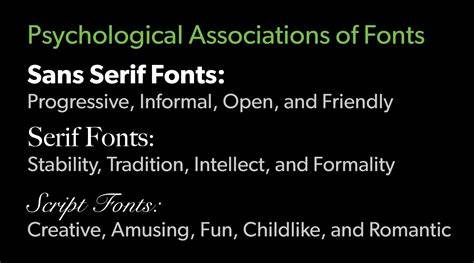
Unlocking The Meaning Of Fonts: A Complete Guide For 2023
For all of the digital content creators, entrepreneurs, and marketers out there, fonts are an essential piece of the puzzle. Whether you’re creating a logo, designing a website, making a presentation, or putting together an ad, the font you choose for your text can make or break the effectiveness of the message you’re trying to convey. But what do different fonts actually mean? This guide will explain the basics of fonts and the hidden meanings behind some of the most popular typefaces.
What are Fonts?
A font is a collection of symbols and characters that can be used to display text on a digital or printed medium. Fonts come in a variety of styles, including serif, sans serif, script, decorative, and more. Different fonts can evoke different feelings and emotions in the reader, so it’s important to choose the right font for the right message.
Common Fonts and Their Meanings
Serif fonts are often thought of as traditional and serious. They are considered more formal than sans serif fonts and are often used in books, newspapers, and magazines. Sans serif fonts are more modern and are often seen in advertisements, websites, and logos. Script fonts are often used to add a whimsical or vintage feel to a design. Decorative fonts are used to add a unique look and feel, and can be used to create an eye-catching headline or logo.
Choosing the Right Font for Your Message
When choosing a font, it’s important to consider the message you’re trying to convey. If you’re creating a logo for a professional company, you may want to choose a more traditional font, such as a serif font, to convey a sense of stability and trustworthiness. If you’re creating a design for a fun and quirky product, you may want to choose a more playful font, such as a script font, to convey a sense of playfulness and energy. No matter what font you choose, it’s important to make sure that the font is legible and easy to read.
Fonts play an important role in conveying the message of your design. Different fonts can evoke different feelings and emotions in the reader, so it’s important to choose the right font for the right message. With this guide, you’ll have a better understanding of what different fonts mean, and you’ll be able to make the most of your design work.